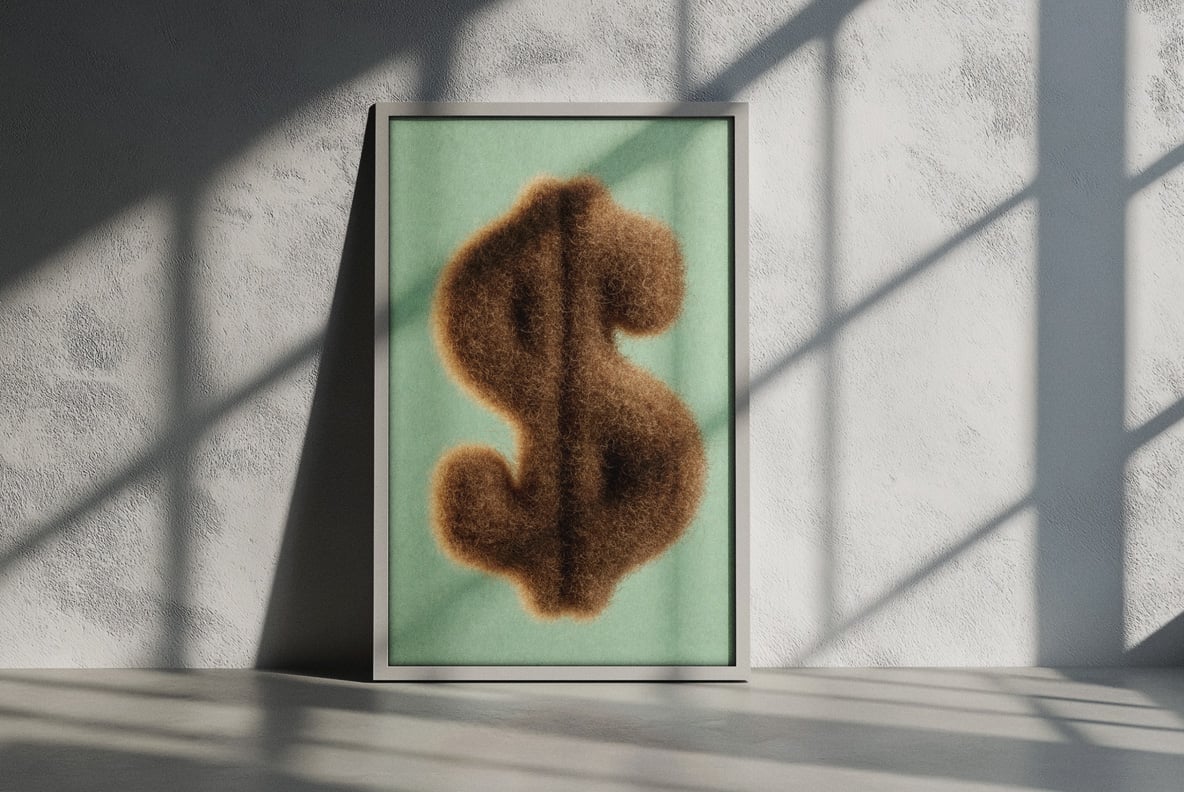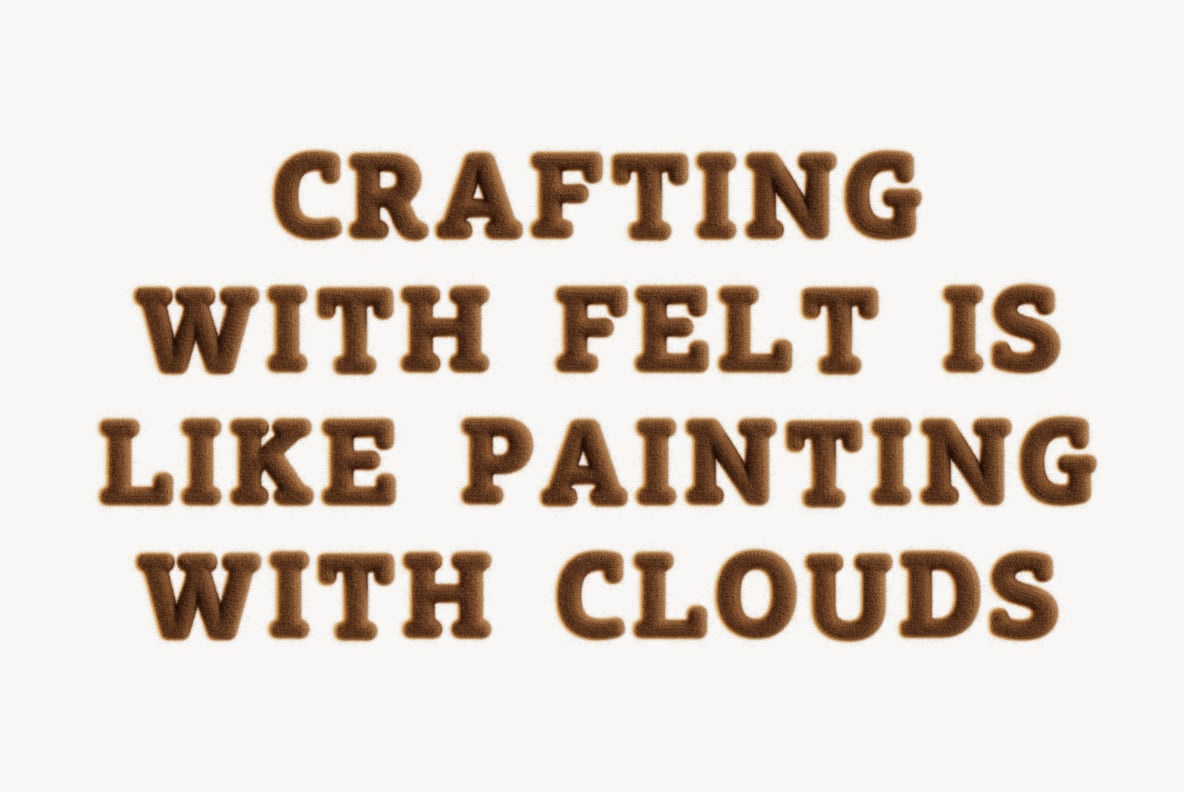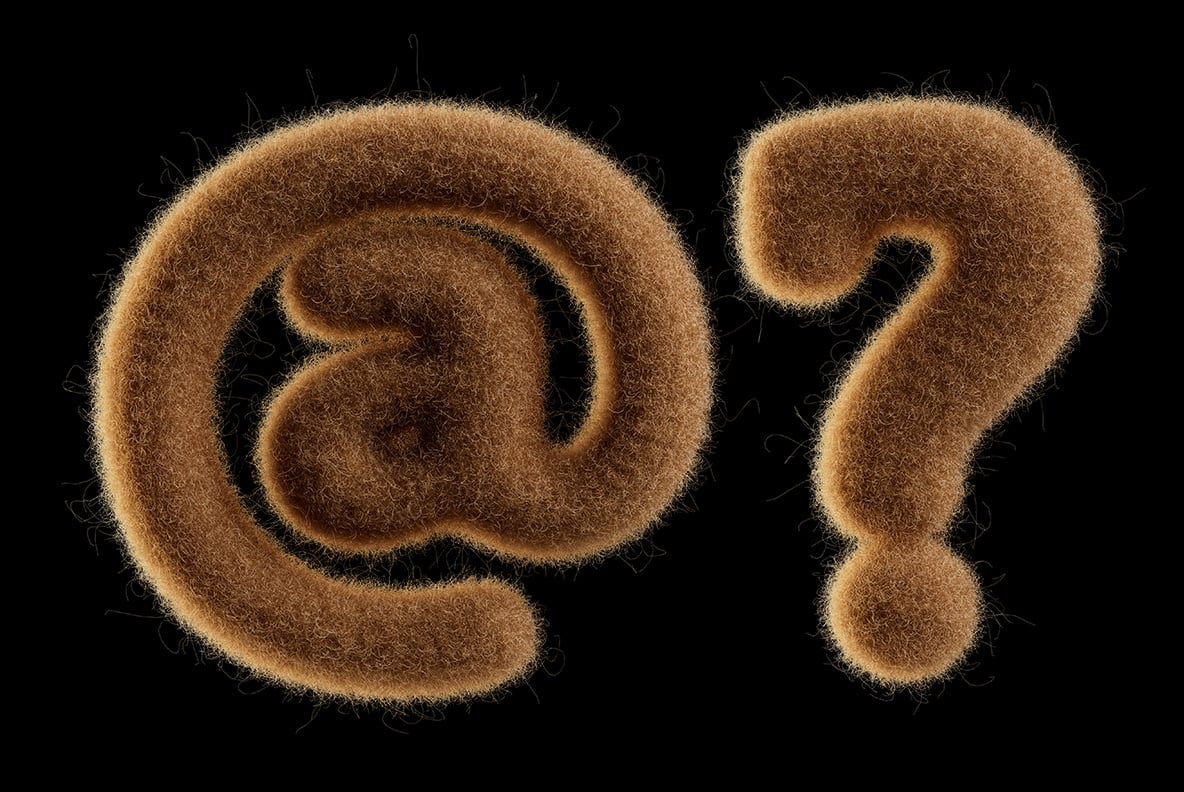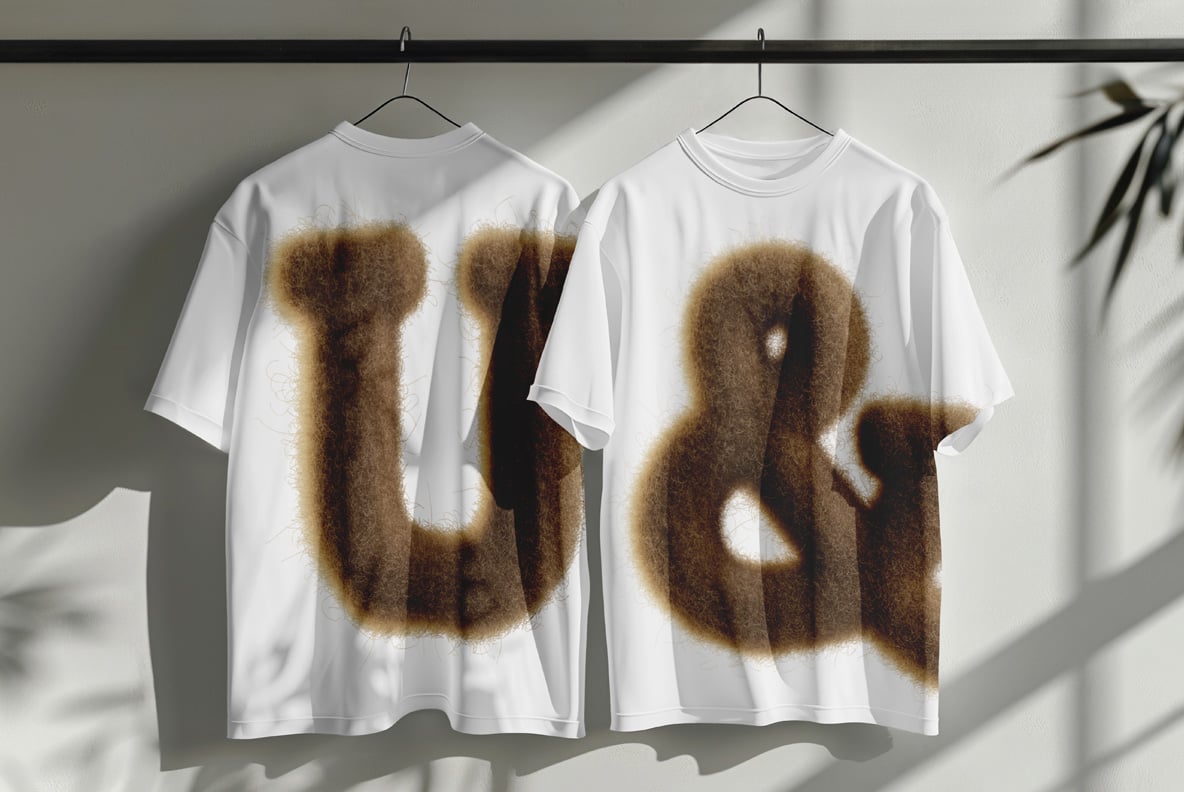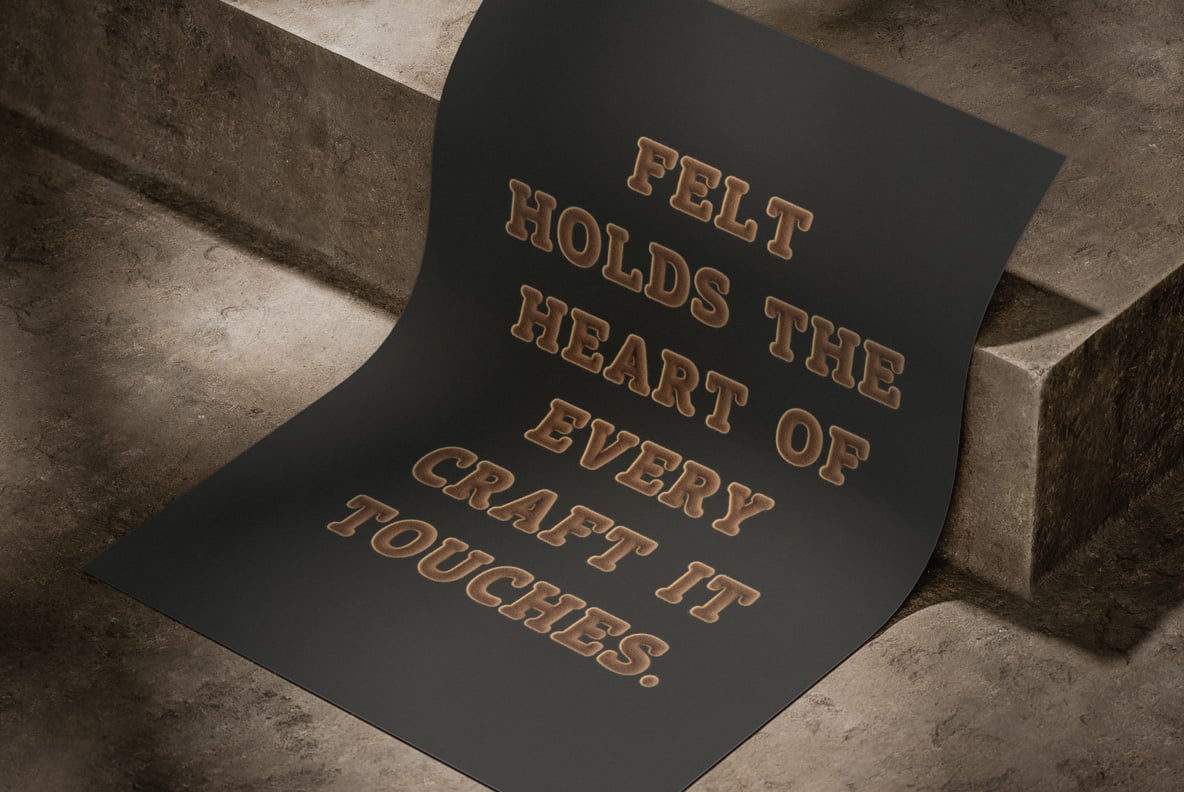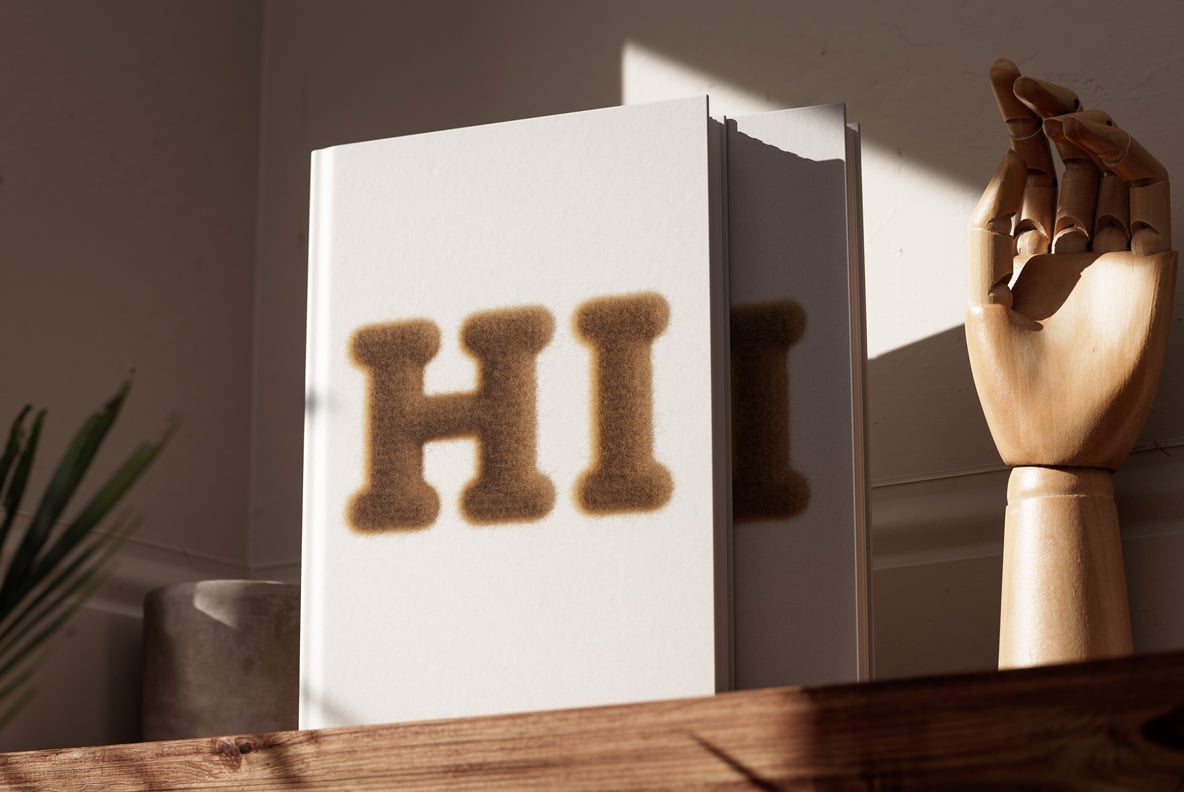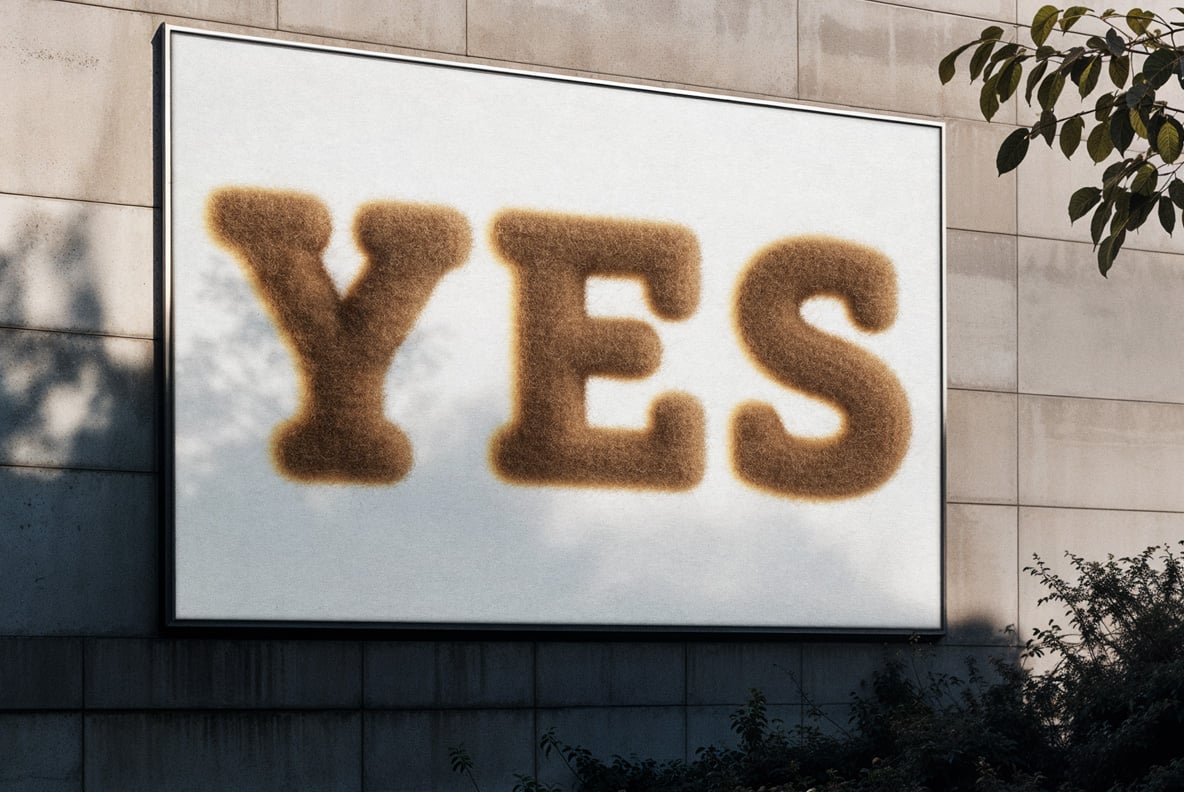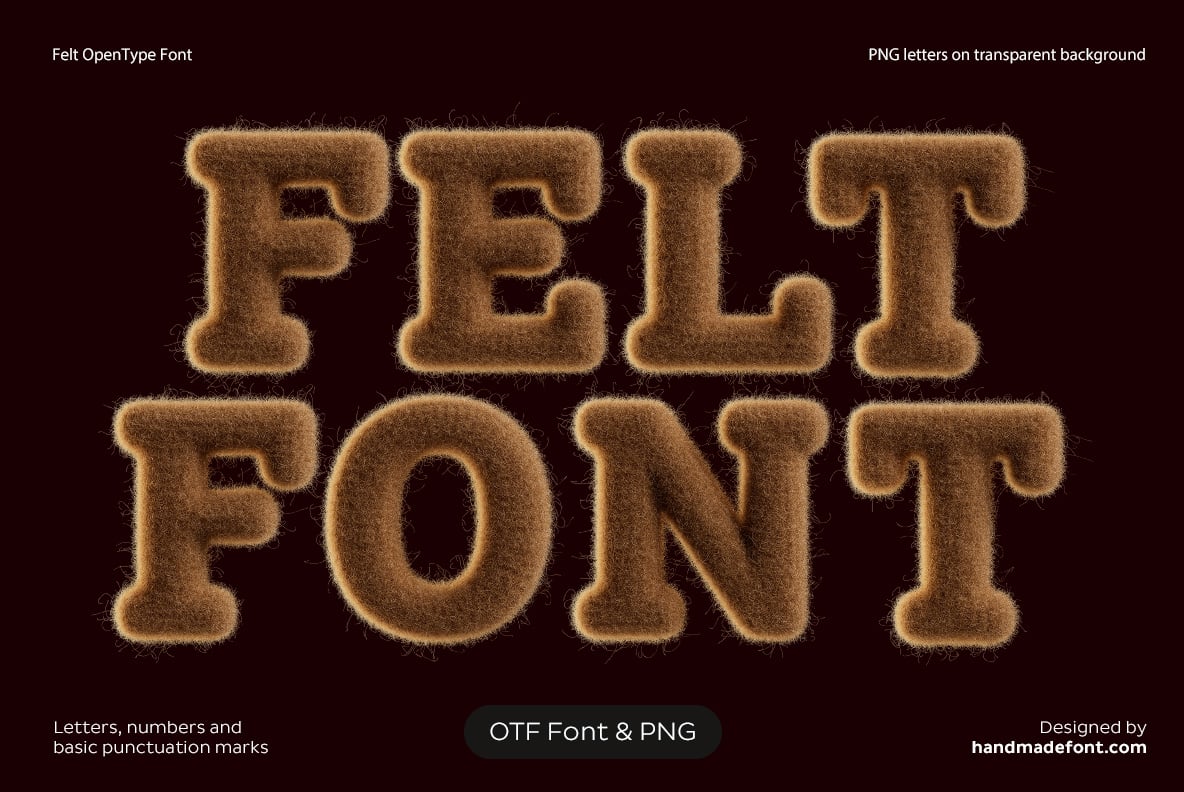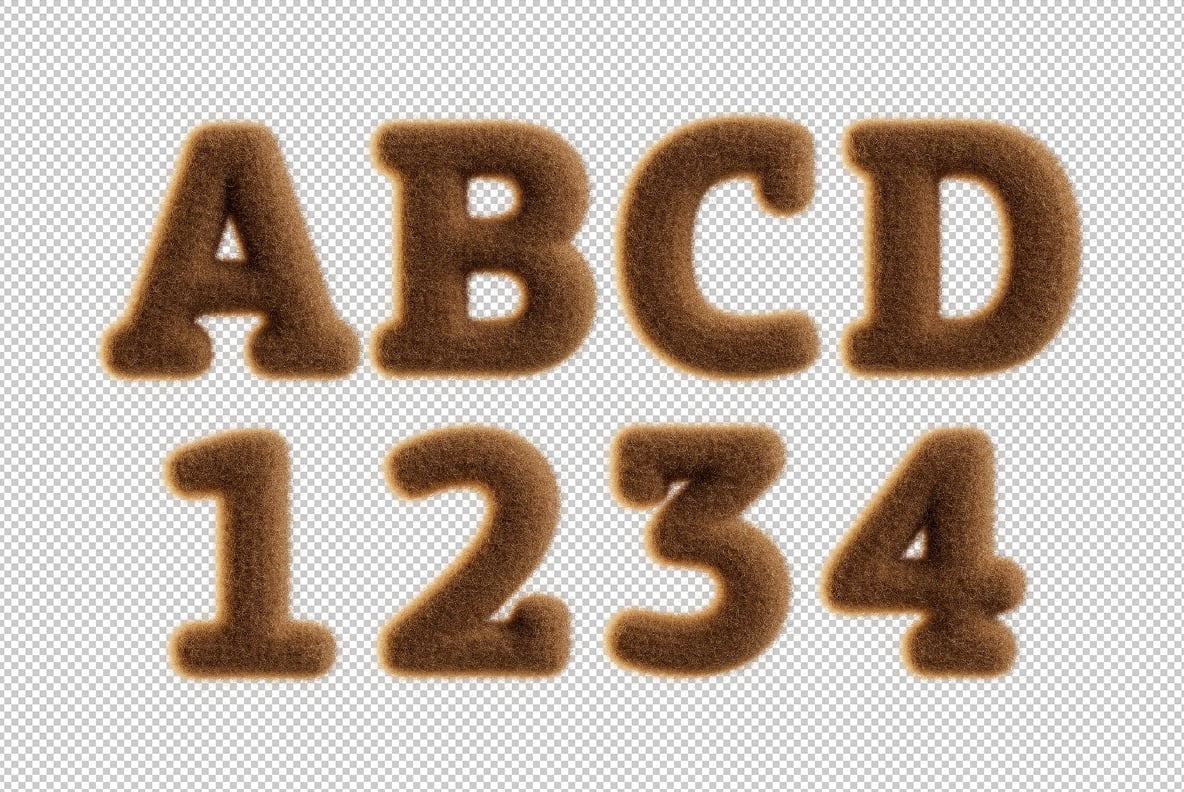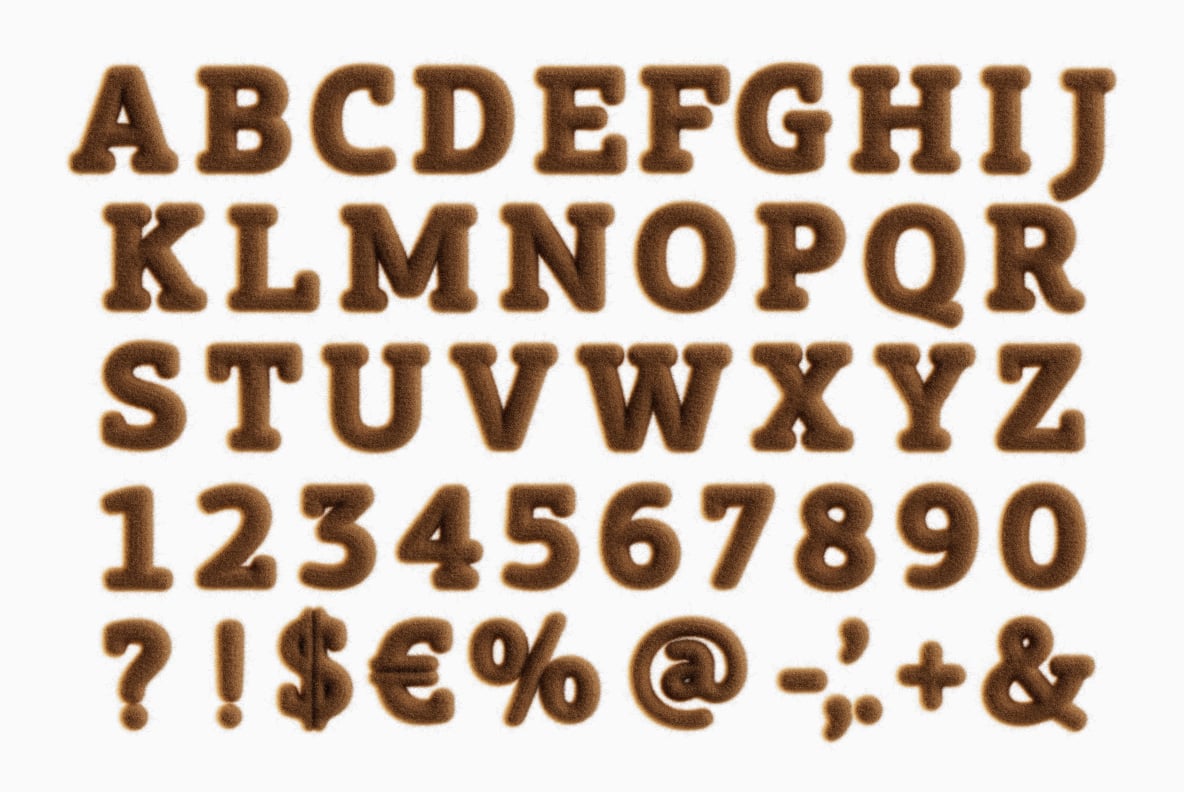
Felt Font
Puffy and irresistibly soft, the Felt Font is a delightful fusion of warmth and whimsy. Each letter is crafted to resemble plush felt, with a velvety, cushiony texture that feels as cozy as a cloud. The gentle fibers protruding from the surface lend the felt alphabet a fuzzy, textured charm that’s both smooth and inviting. This felt-inspired font evokes a sense of comfort and creativity, perfect for designs seeking a touch of softness and playfulness. With its warm brown hue and airy, plush appearance, the felt typography exudes a handcrafted elegance, combining the gentle allure of felt with the artistry of lettering. The result is a fluffy, velvety masterpiece that feels both tactile and timeless, capturing the essence of felt lettering in every curve and stroke.